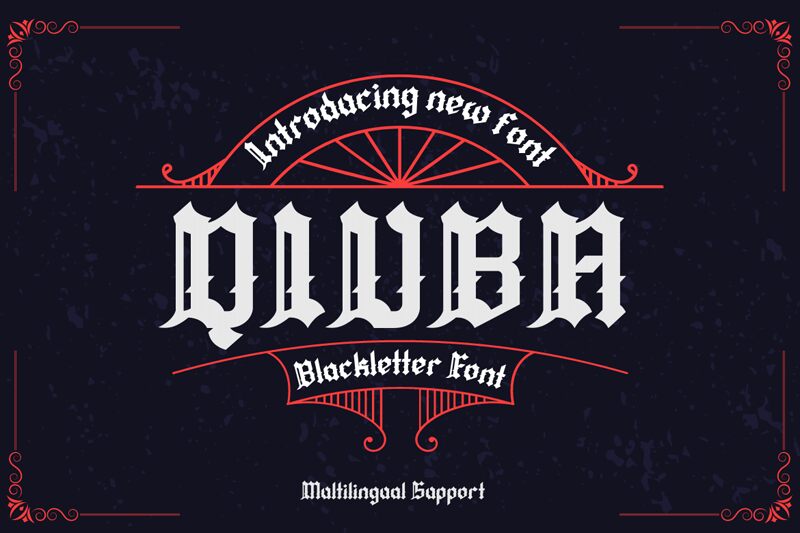
QIUBA-Regular
Fonts can make or break a design, so why not use the best? The ideal Gothic font is QIUBA!
You should use this professional-grade font to create labels, retro designs, stamps, badges, Oktoberfest posters, and other things. It's perfect for any project that calls for a little gothic flair. Whether you're designing a logo, label, badge or even working on your newest music video or movie, this modern semi-bold font will add a touch of elegance and uniqueness to your work.
With its beautiful and harmonious forms available in various styles, QIUBA is the go-to Blackletter font for all your creative endeavors.